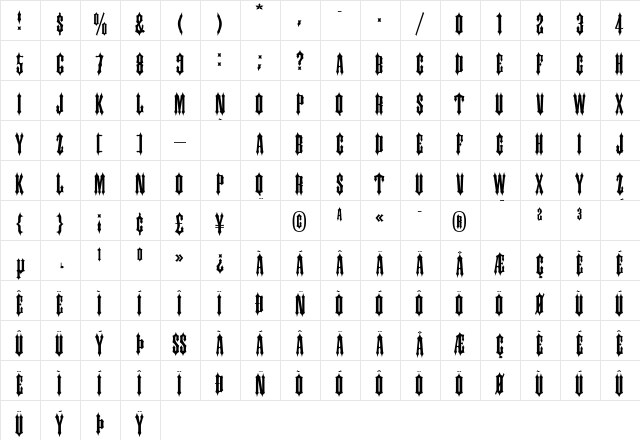
Ironwood Regular
Design Context for Ironwood Typeface
Ironwood taps into classic Western woodtype traditions — bold, characterful, and impossible to ignore.
Perfect for barbecue restaurants, country music branding, vintage poster design, and rustic packaging.
Font Pairing: Combine Ironwood with a simple slab or neutral sans — period-accurate companions reinforce the vintage feel without competing for attention.
Pro Tip: Pair Ironwood with aged textures or distressed backgrounds to amplify its vintage personality.